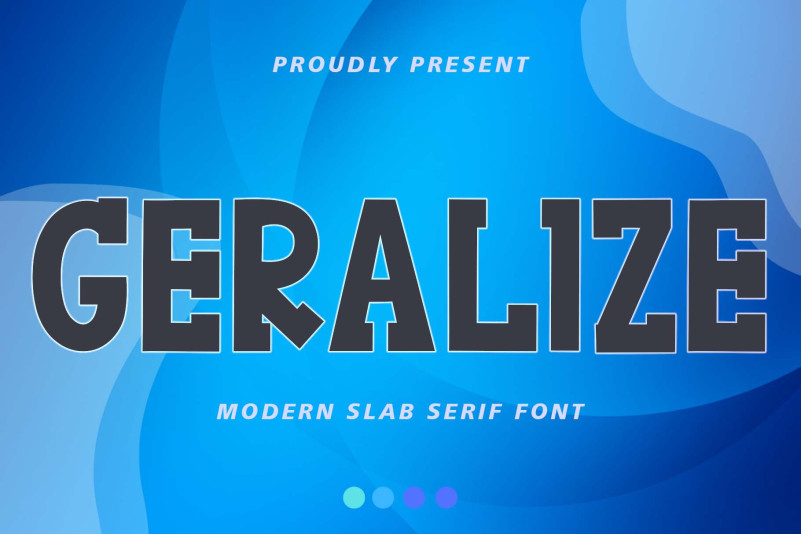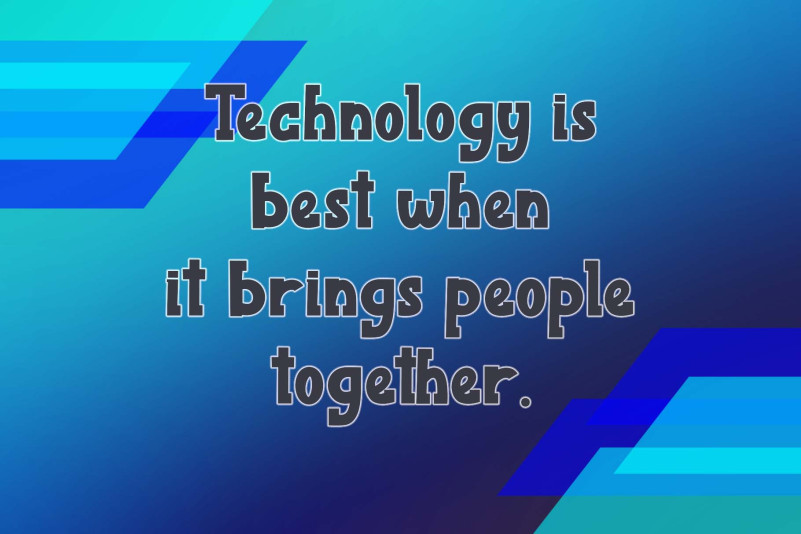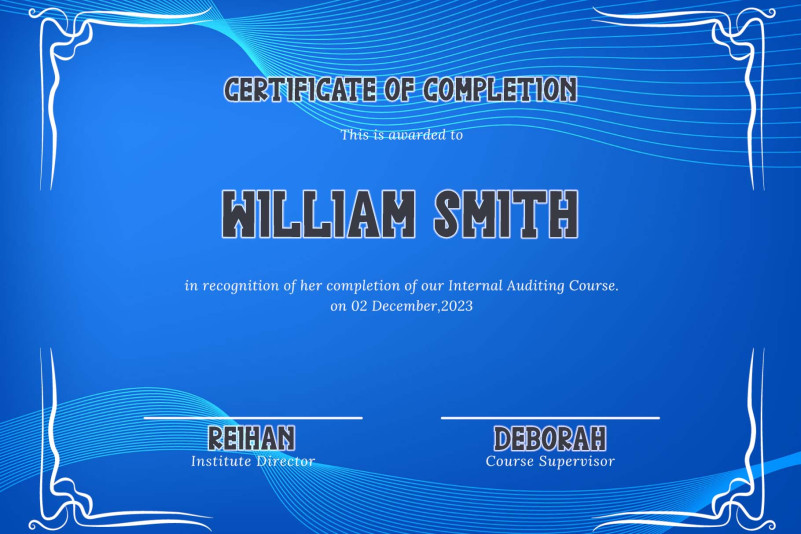
Geralize Font
Geralize Font is a very elegant and professional modern slab serif font. It is suitable for logos, branding, banners, posters, prints, and more. Keep in mind that the font is PUA encoded, meaning that you can access all delightful glyphs and swashes effortlessly.